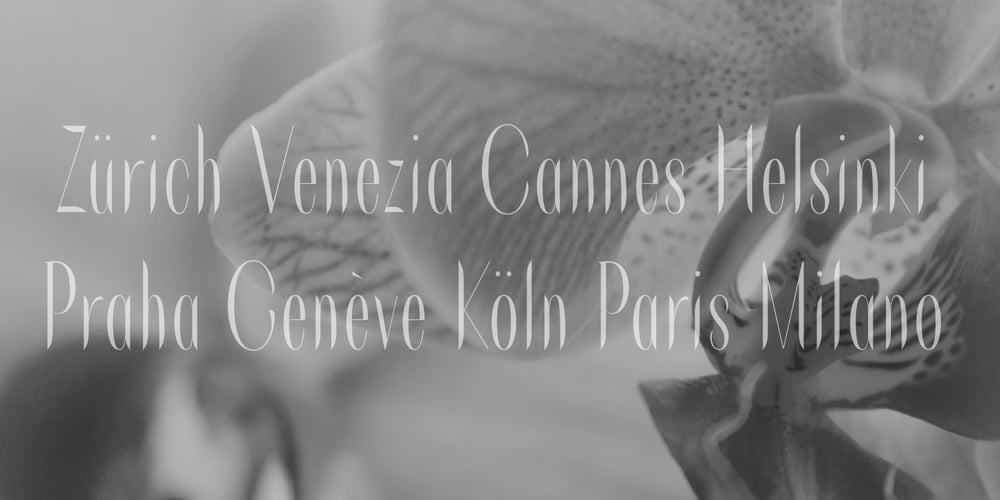
Czerny Font Family was designed by Solfege Design Studio and published by Solfege. Czerny contains 1 styles and family package options. Czerny is a display typeface with clean contours and carefully cut-off edges. It combines the classical feel of old serif fonts with the sleek, minimalist aesthetics of contemporary design.